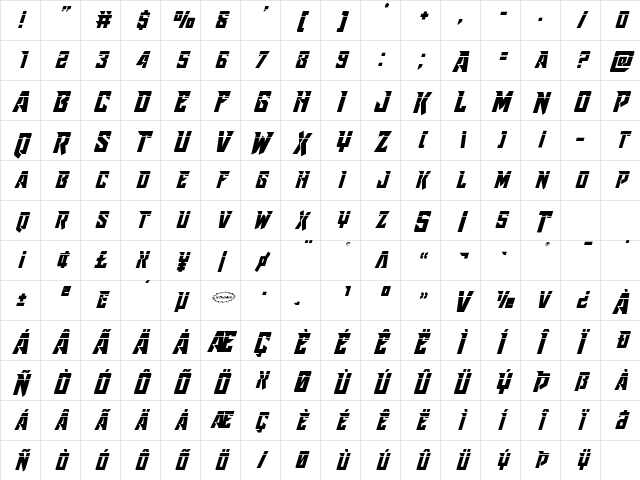
Raider Crusader Laser Regular Free Font
Raider Crusader Laser Regular
Design Context for Raider Crusader Laser
Raider Crusader Laser is a composed and adaptable typeface that performs quietly and consistently across a wide range of design contexts.